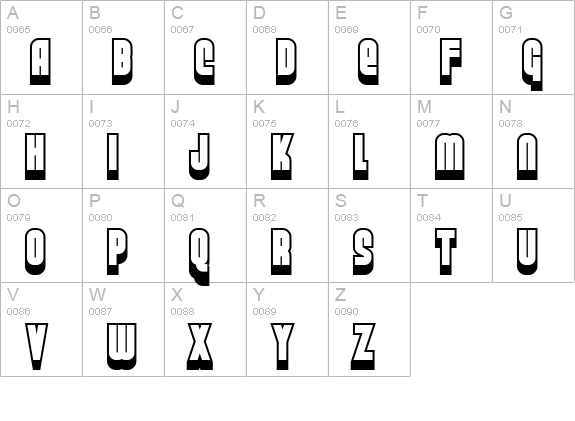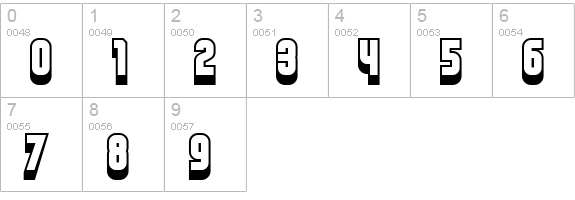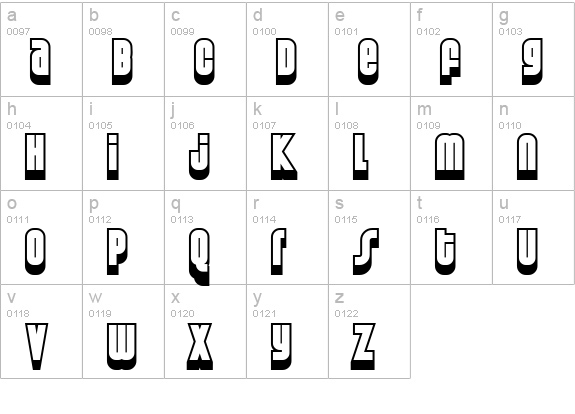
Weltron 2001 Font Details
Introducing Weltron 2001, a cutting-edge font that seamlessly blends timeless elegance with a modern twist. This unique typeface exudes a sense of sophistication, making it perfect for a wide range of design projects. With its sleek lines and bold presence, Weltron 2001 commands attention and leaves a lasting impression. But what sets Weltron 2001 apart is not just its stunning aesthetics; it is also completely free. Yes, you read that right! This remarkable font is freely available for download exclusively at FontsMarket.com. Now, you can elevate your designs without breaking the bank, as Weltron 2001 offers a professional and high-quality solution without the cost. Whether you're working on a logo, a website, or a branding project, Weltron 2001 is here to elevate your design game. Its versatility lends itself to various industries, from fashion and beauty to technology and beyond. With its clean and stylish appearance, Weltron 2001 effortlessly captures attention and conveys a sense of modernity. Embrace the power of Weltron 2001 and unlock endless possibilities for your creative endeavors. Download this exceptional font for free at FontsMarket.com and witness how it transforms your designs into stunning works of art. Don't miss out on this opportunity to add a touch of elegance and sophistication to your projects without spending a dime. Weltron 2001 is the epitome of style and accessibility, making it a must-have for any designer or creative enthusiast.